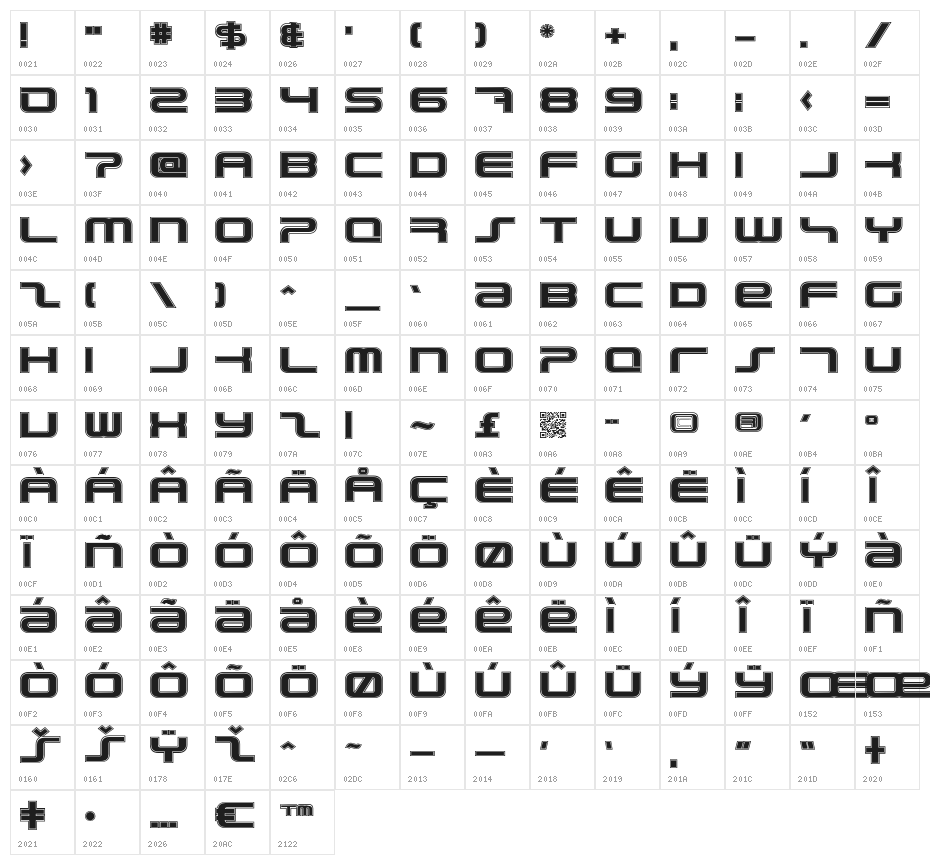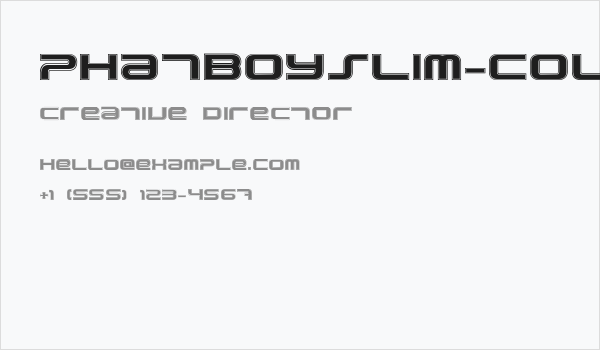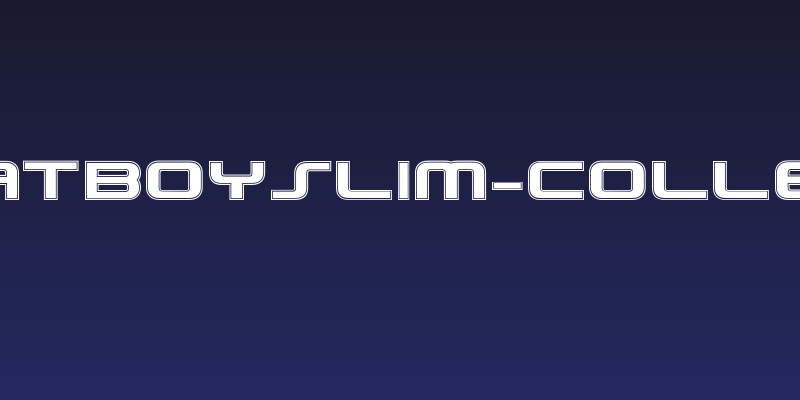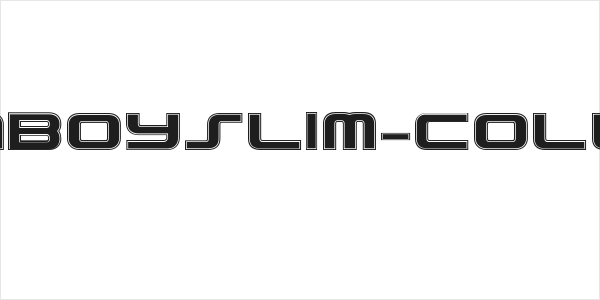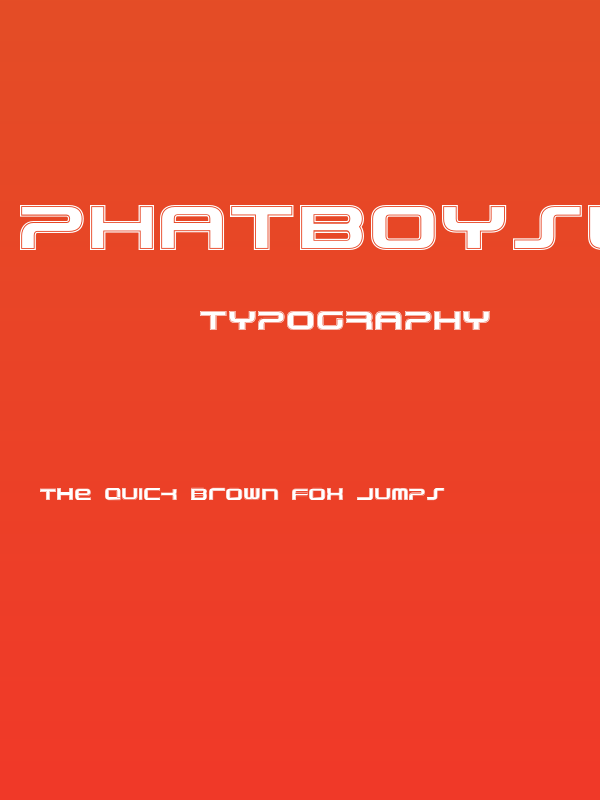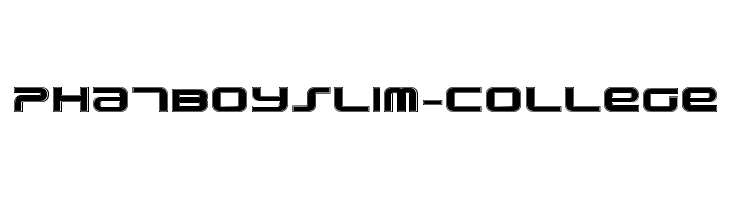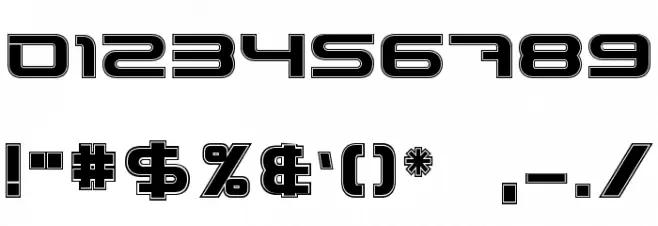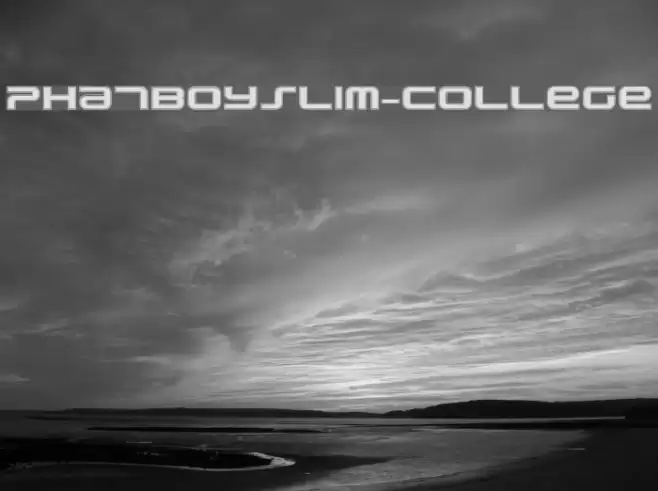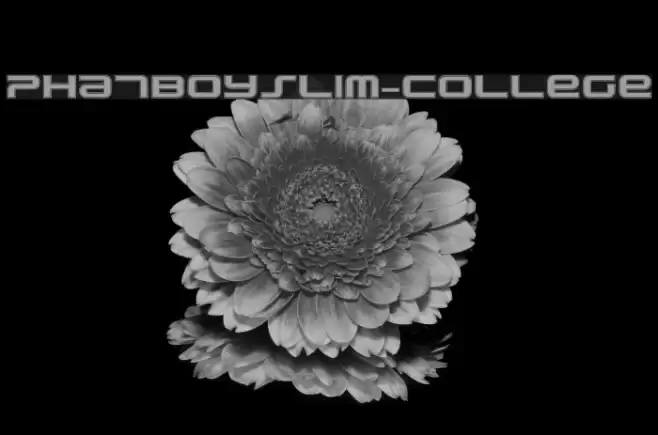
PhatBoySlim-College Font
PhatBoySlim-College Description
This font features a bold, futuristic design with a strong emphasis on geometric shapes and clean lines. The characters are constructed with a consistent stroke width, giving them a uniform appearance. The uppercase and lowercase letters share a similar structure, enhancing the cohesive look. The numbers and special characters maintain the same stylistic approach, ensuring a seamless integration across different uses. The font's distinct style makes it ideal for projects that require a modern and edgy aesthetic, such as technology-related branding or contemporary advertising campaigns.
| Proposed Projects | Ideal for technology branding, modern advertising, and edgy design projects. |